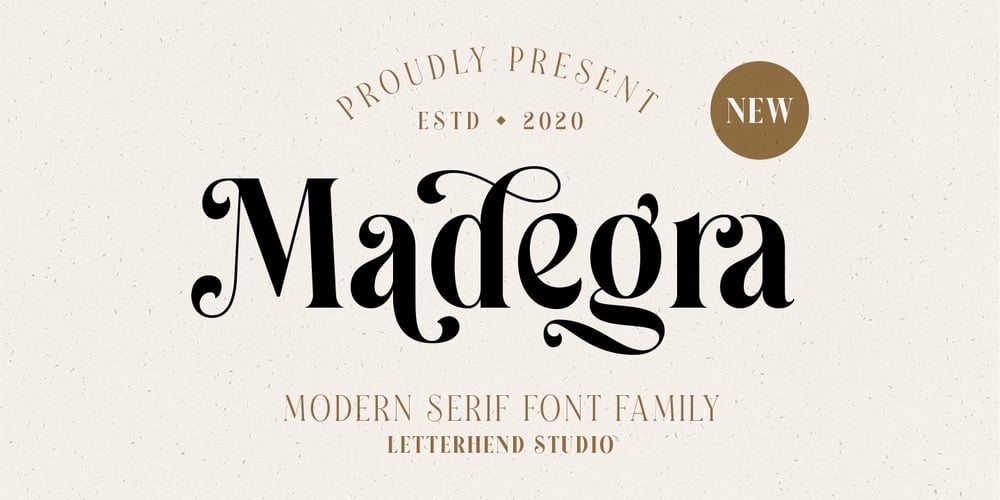
Madegra
Madegra font
Madegra Font Family was designed by Hendry Juanda and published by Letterhend. Madegra contains 9 styles and family package options. Madegra is an elegant display serif family. It includes many alternates with swashes that can make your lettering and logotype become more interesting. The clean and neat of a serif combined with the swirl swashes makes this font even more unique, especially since this family has 9 weight styles which you can choose according your needs!This font works well in various formal forms such as invitations, labels, logos, magazines, books, greeting / wedding cards, packaging, fashion, make up, stationery, novels, labels or any type of advertising purpose.Features : uppercase & lowercase numbers and punctuation multilingual ligatures alternates swashes PUA encoded 9 Weight Styles We highly recommend using a program that supports OpenType features and Glyphs panels like many of Adobe apps and Corel Draw, so you can see and access all Glyph variations.Email us to letterhend@gmail.com if you need something! Happy Designing!